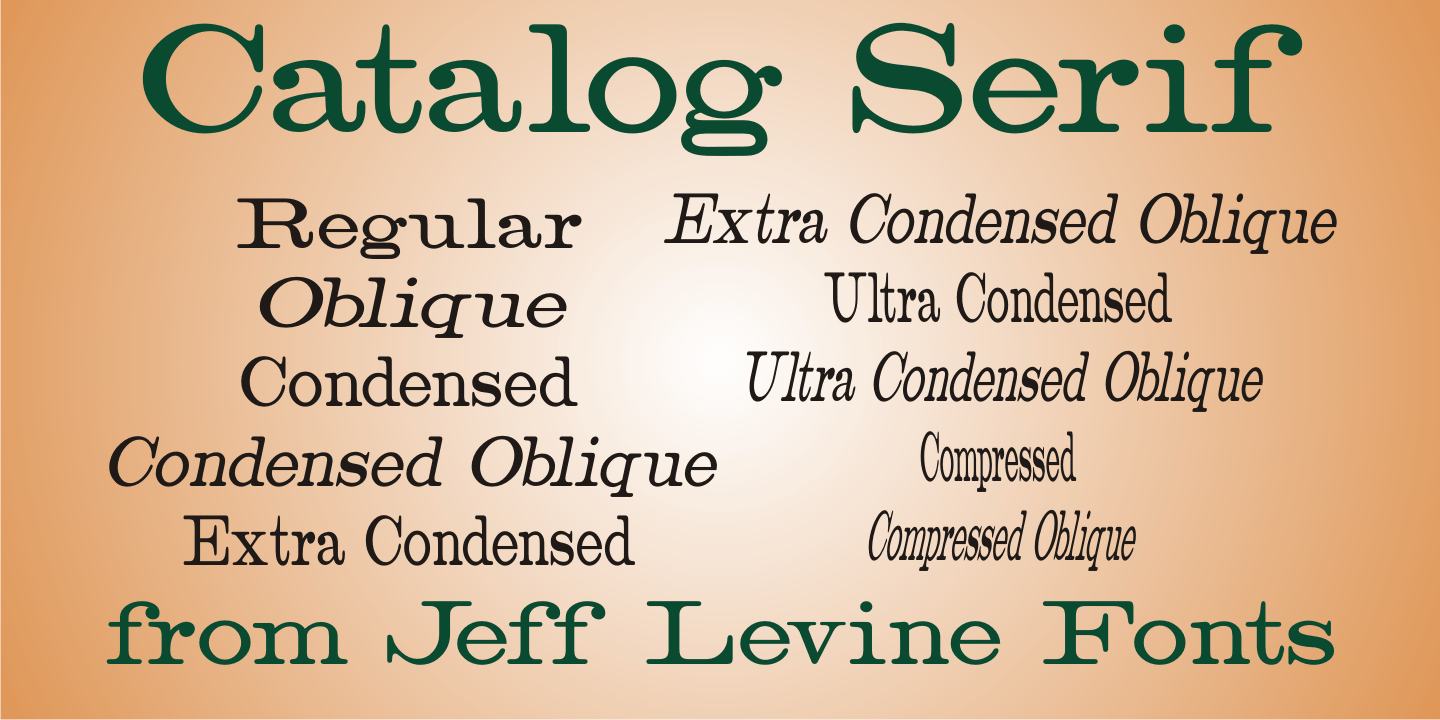
Catalog Serif
Based on text used as sub-headings within a reproduction of a sales catalog for stencil punch dies manufactured by S.M. Spencer & Co. (originally of Brattleboro, VT), circa 1868.
Catalog Serif JNL is available in regular, oblique, condensed, condensed oblique, extra condensed, extra condensed oblique, ultra condensed, ultra condensed oblique, compressed and compressed oblique versions.